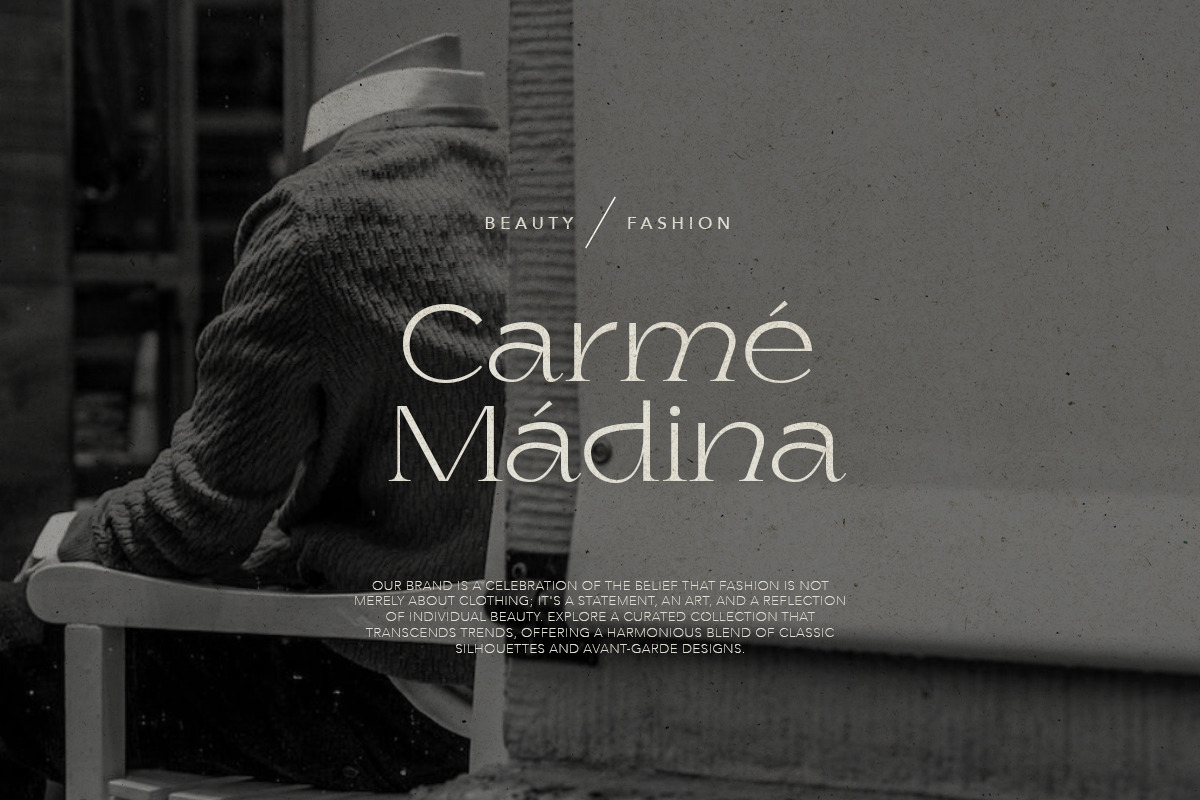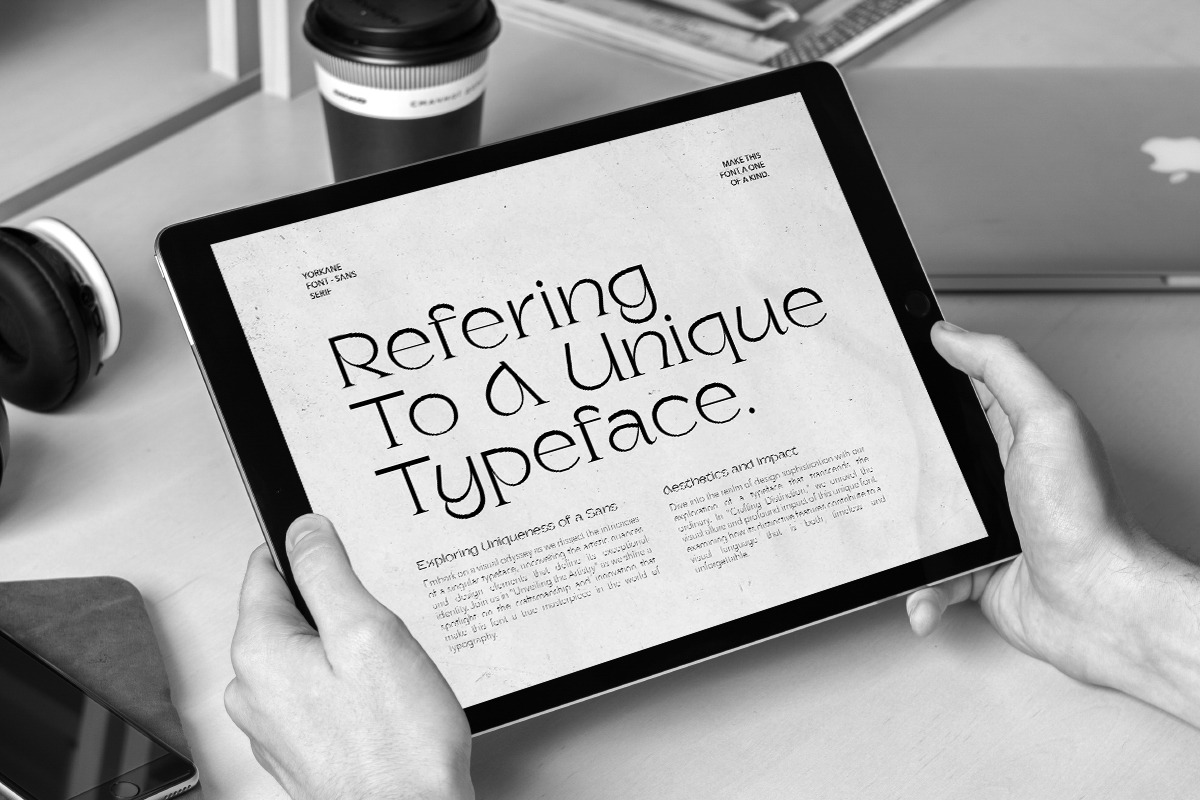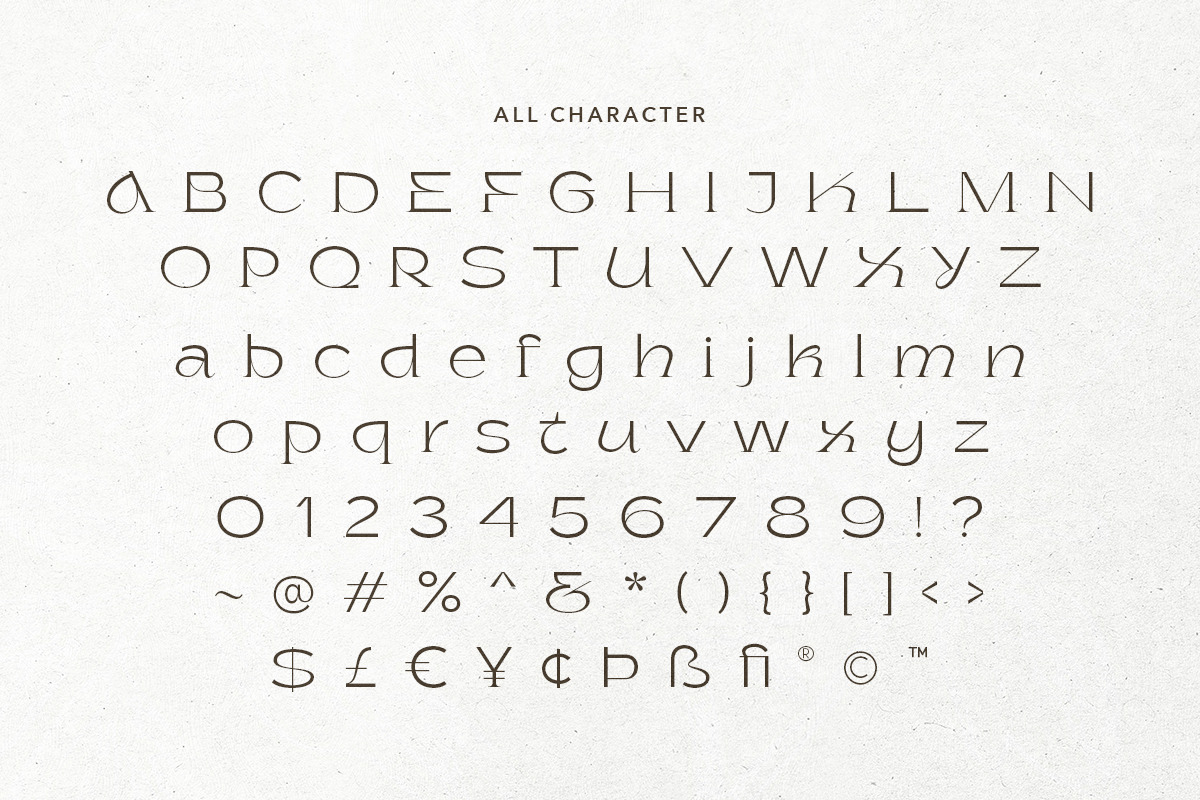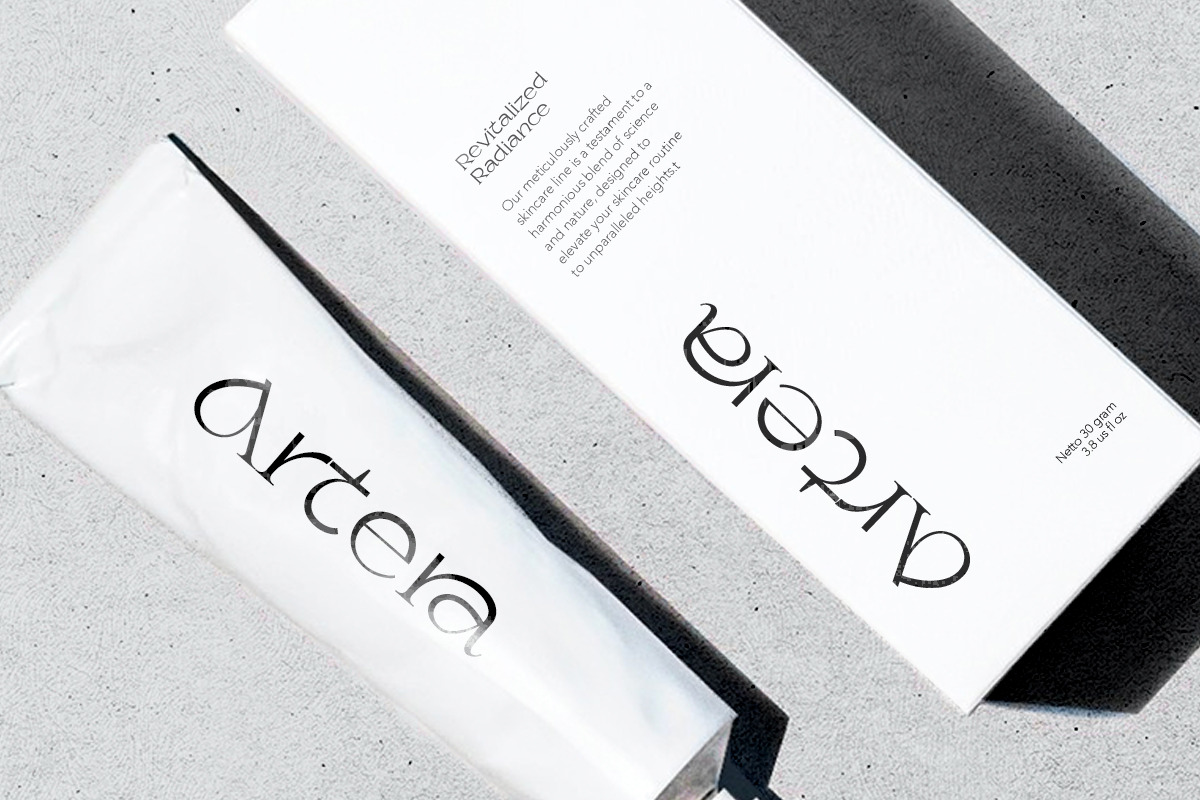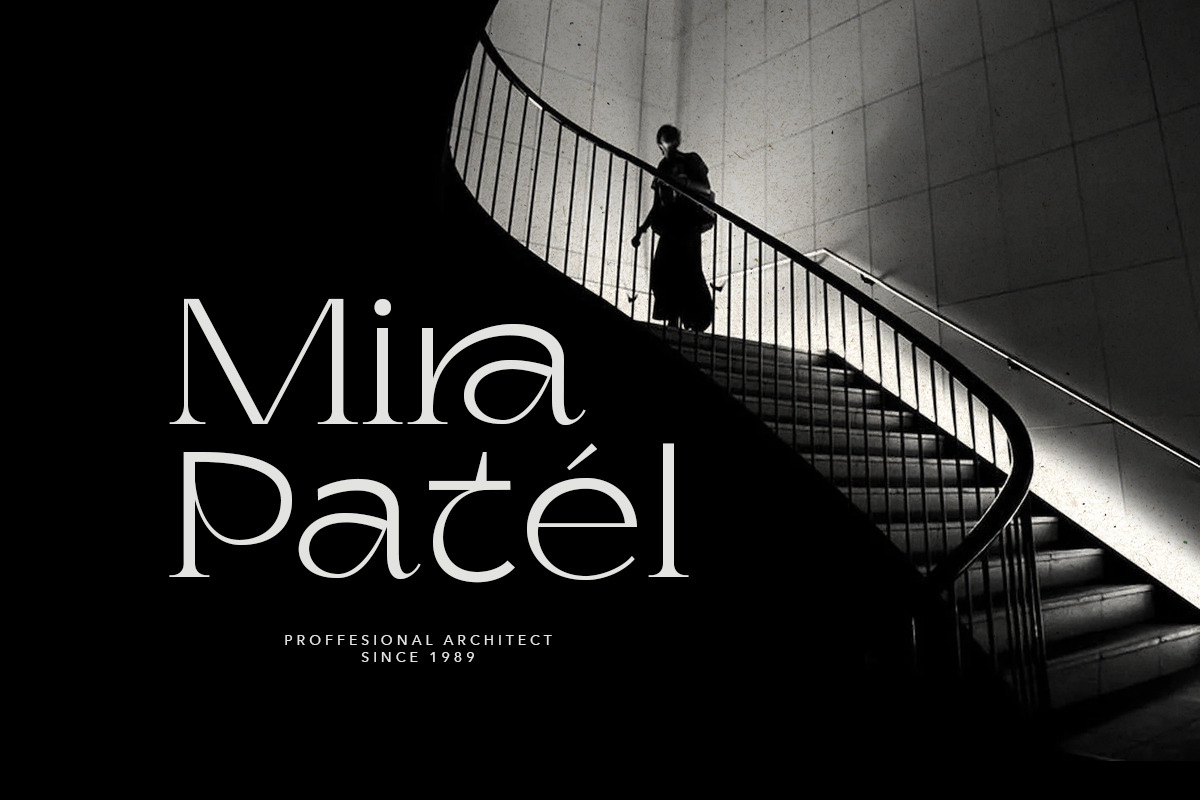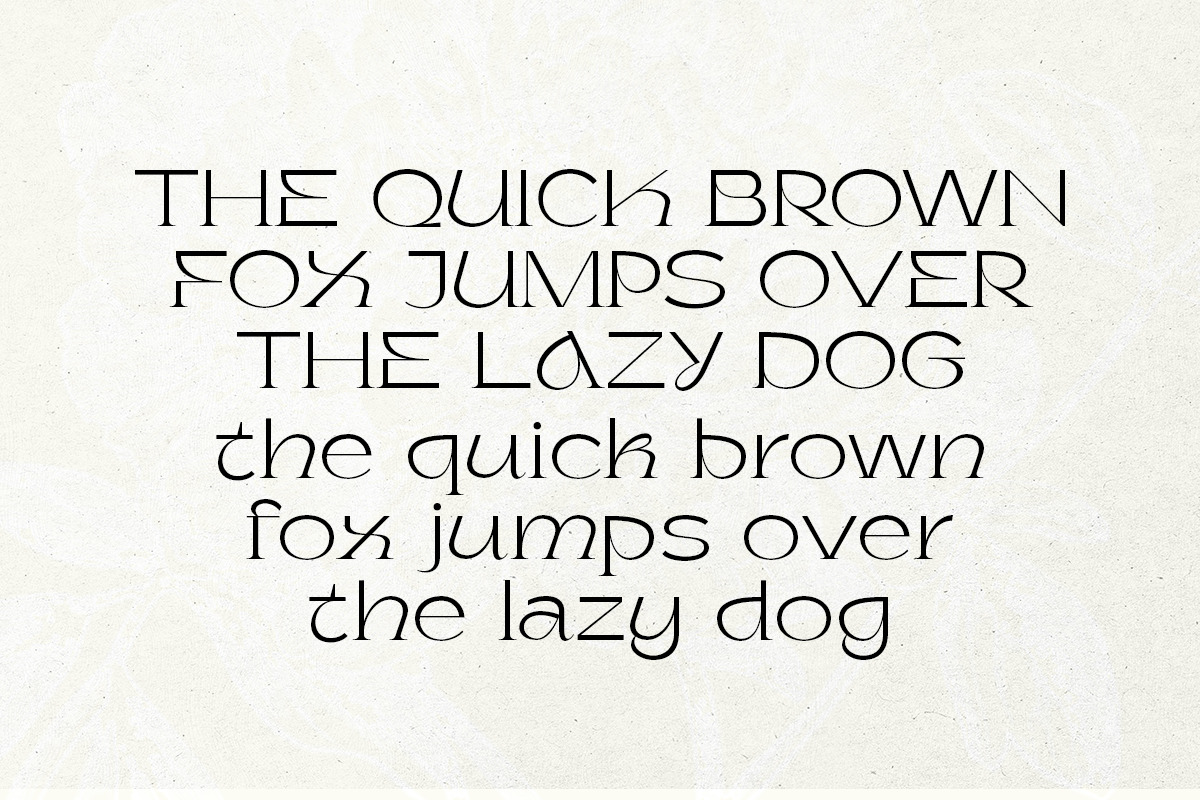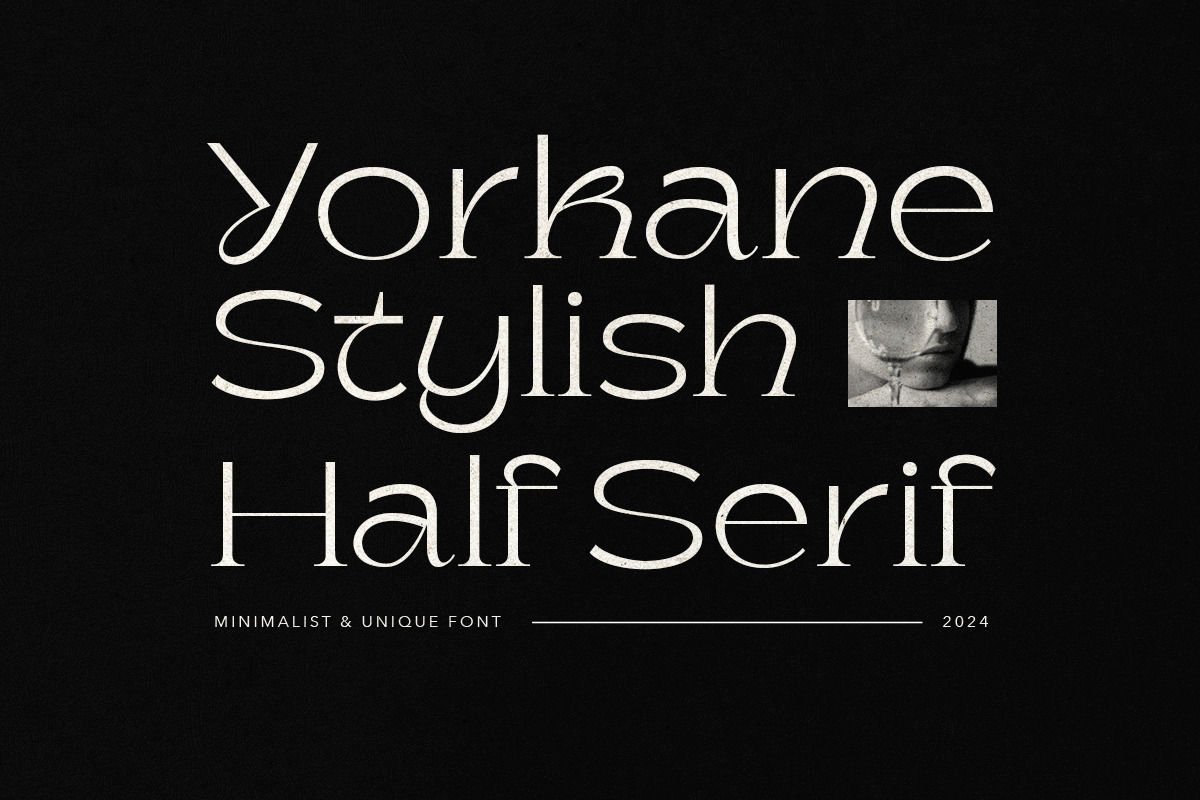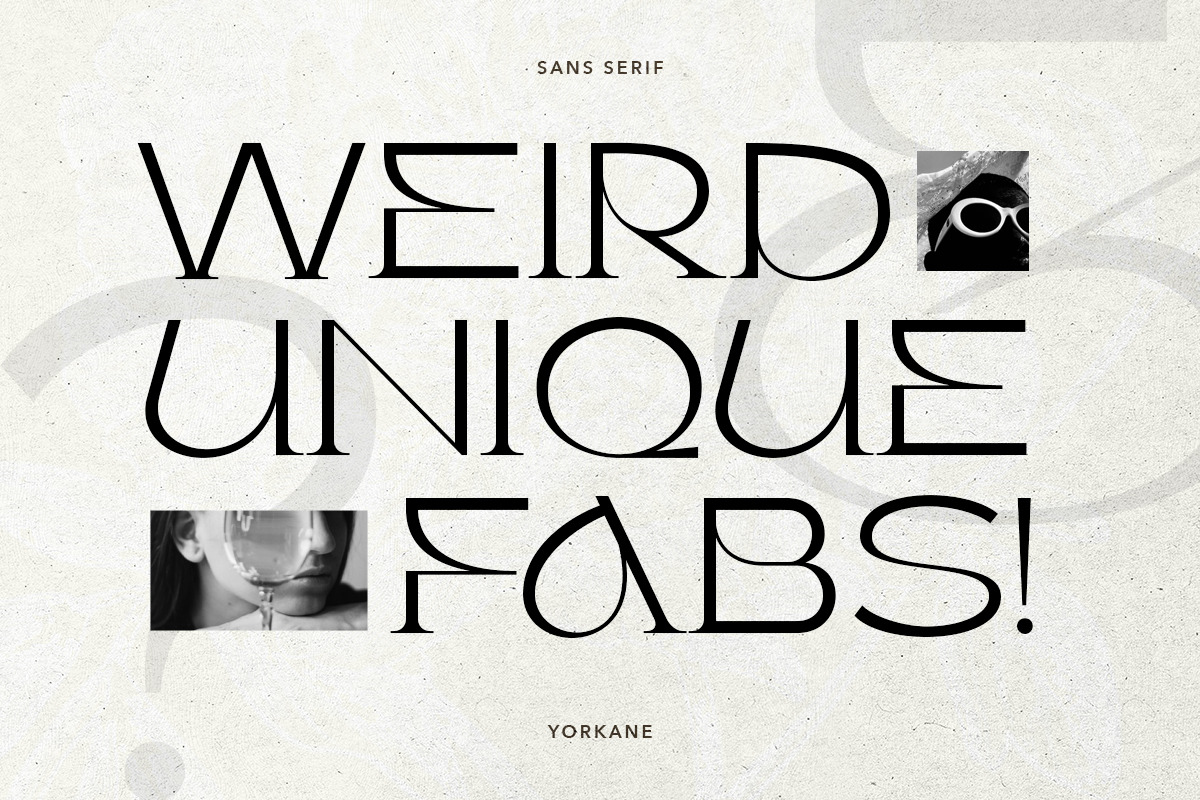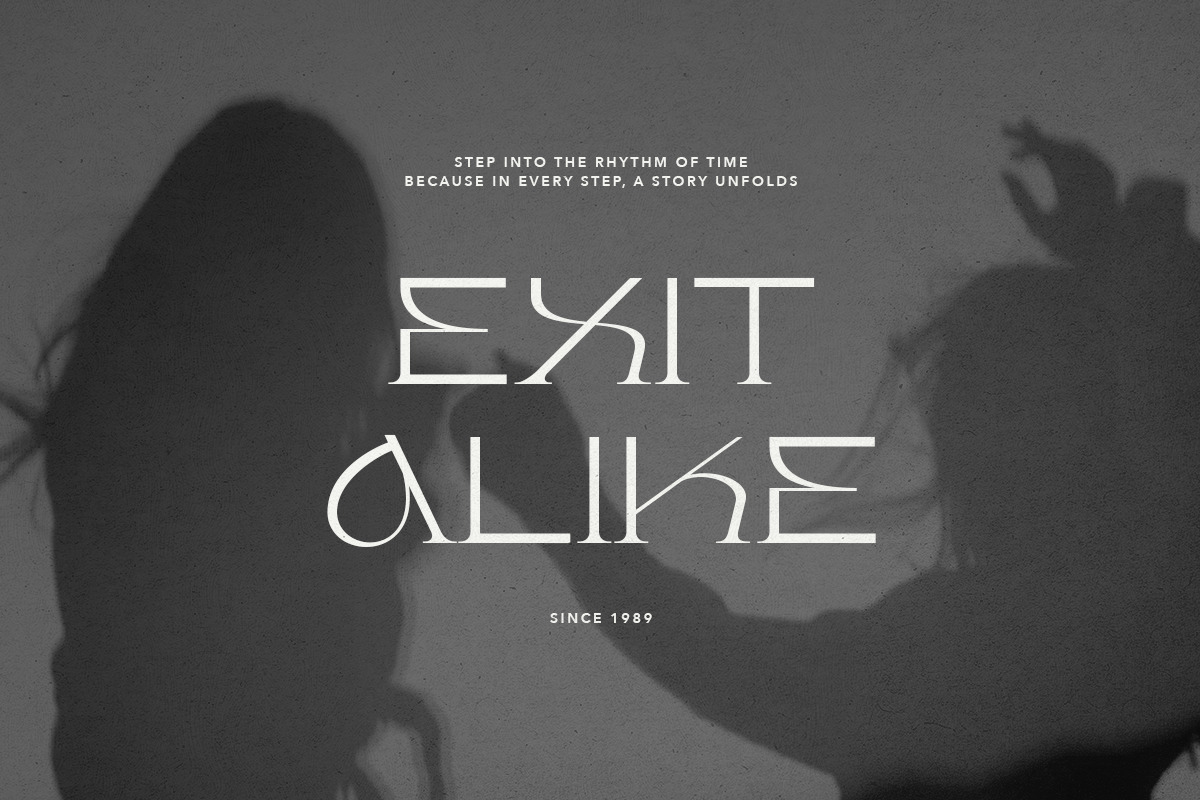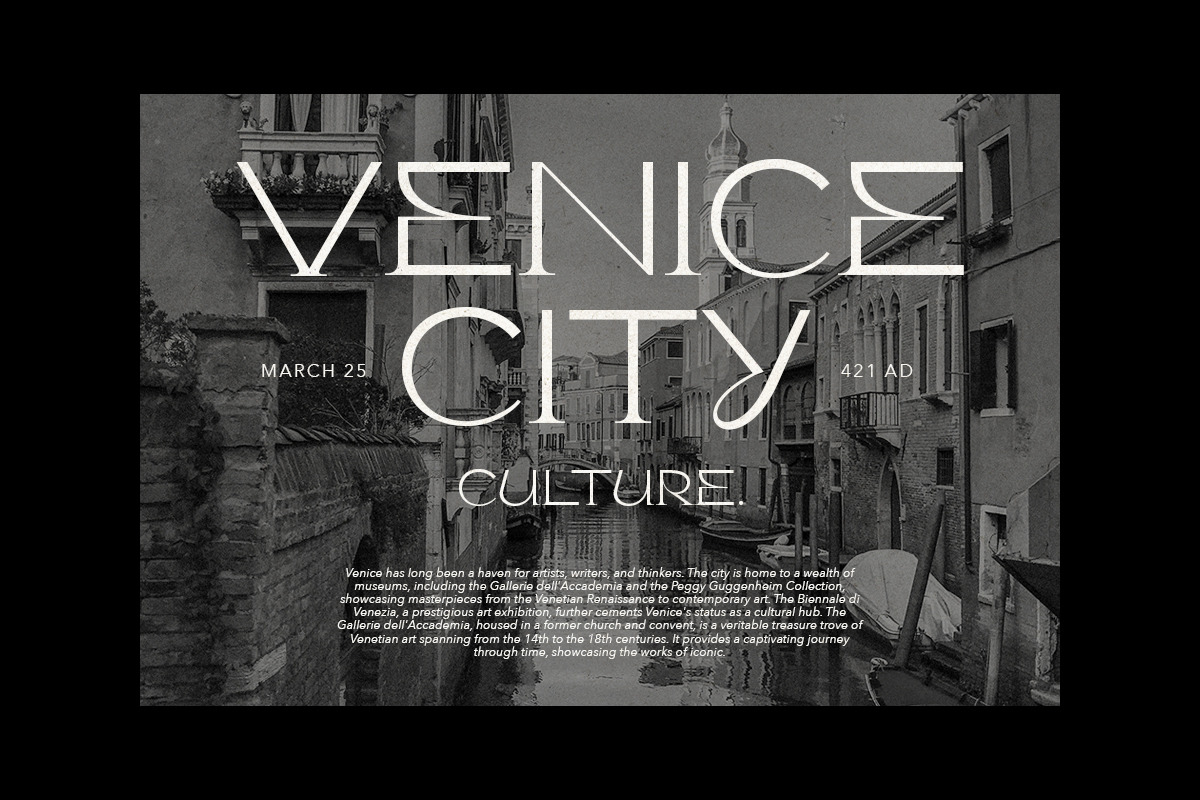
Yorkane - Stylish Half Serif
Yorkane is a stylish font that have unique yet minimalist look. With half of the serif, this font will make your design looks stand out and stunning. You can use this font for any purpose, such as logo, quotes, and for branding. This font also support multi language.